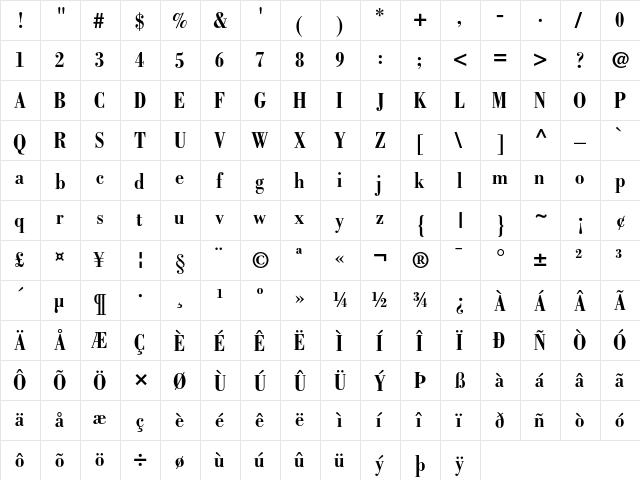
Bodoni Bold Condensed Font Preview
Bodoni Bold Condensed
Design Context for Bodoni Typeface
Bodoni is a composed and adaptable typeface that performs quietly and consistently across a wide range of design contexts. Its bold stroke weight gives it real presence on the page. The condensed width makes it efficient for tight spaces without sacrificing legibility.